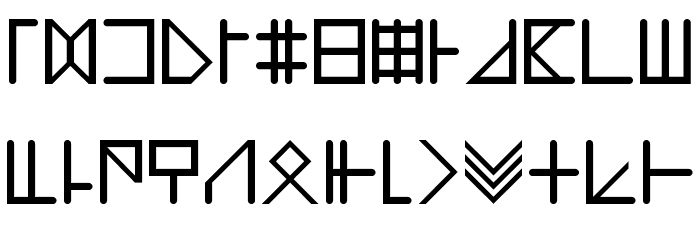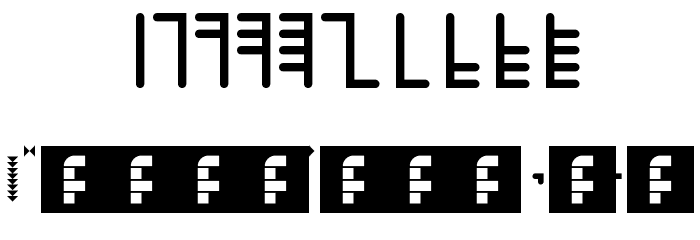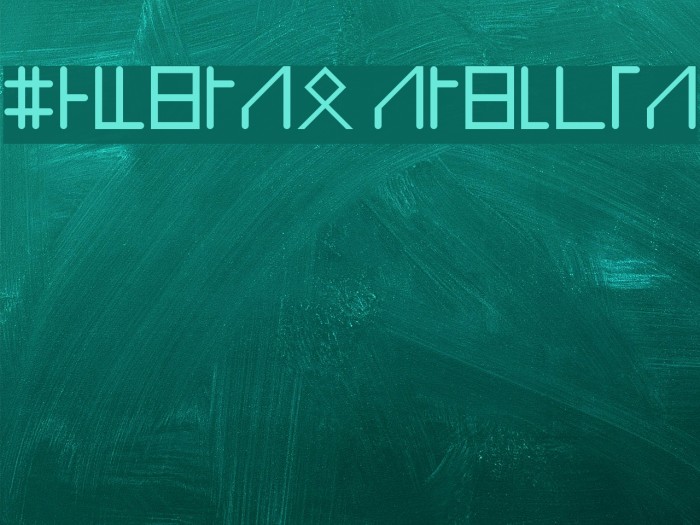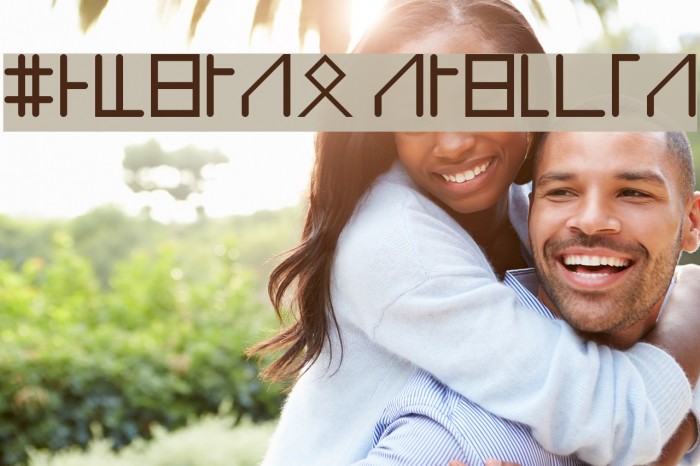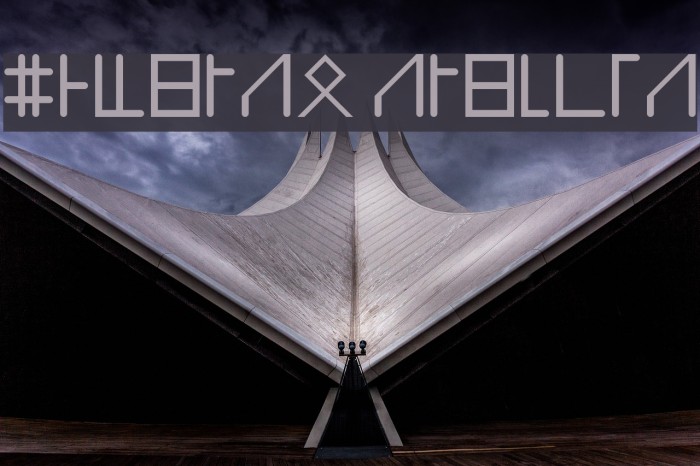
Fingers Regular Font
This font features a highly geometric and abstract design, reminiscent of ancient symbols or runes. Each character is composed of straight lines and sharp angles, creating a futuristic and cryptic appearance. The uniformity in line thickness across all characters gives it a cohesive and structured look. The characters are distinct and bold, making them stand out individually while maintaining a consistent style throughout the set. The font lacks traditional curves and serifs, opting instead for a more rigid and mechanical aesthetic. This design choice enhances its modern and avant-garde appeal, making it suitable for projects that require a unique and striking visual identity.
A geometric and abstract font with a futuristic, cryptic design.
- Proposed Projects: Ideal for sci-fi themed projects, video game interfaces, movie posters, or any creative work that requires a unique and modern typeface.